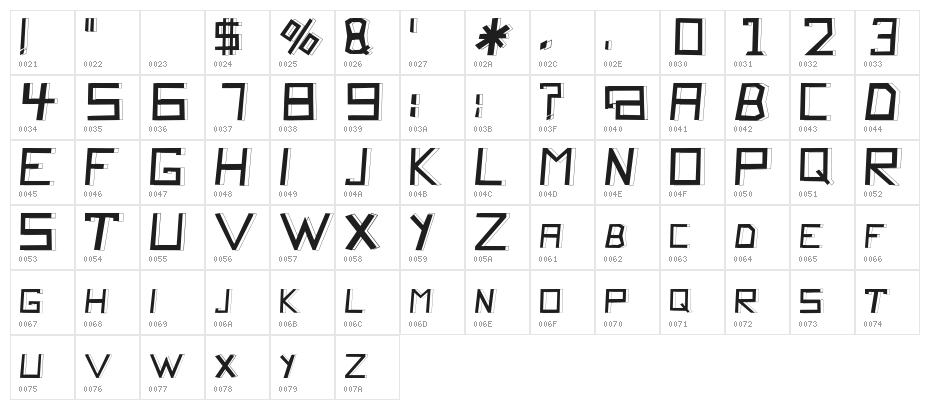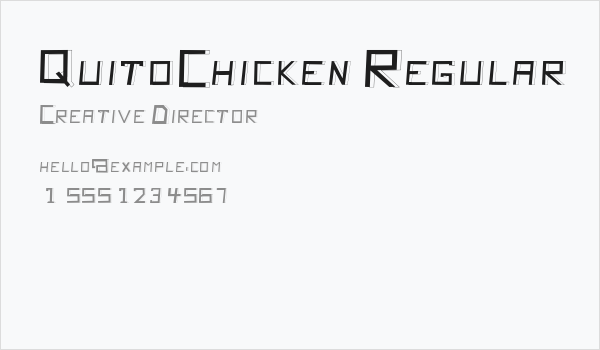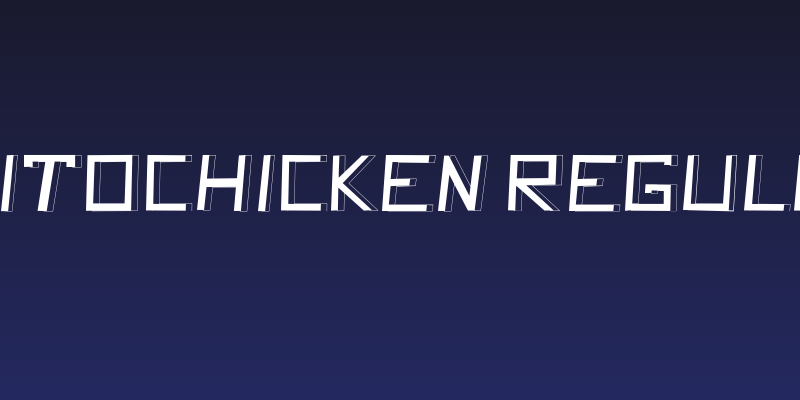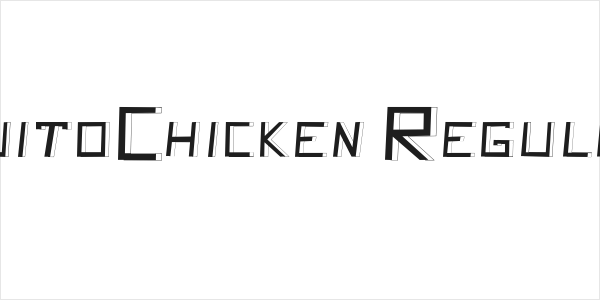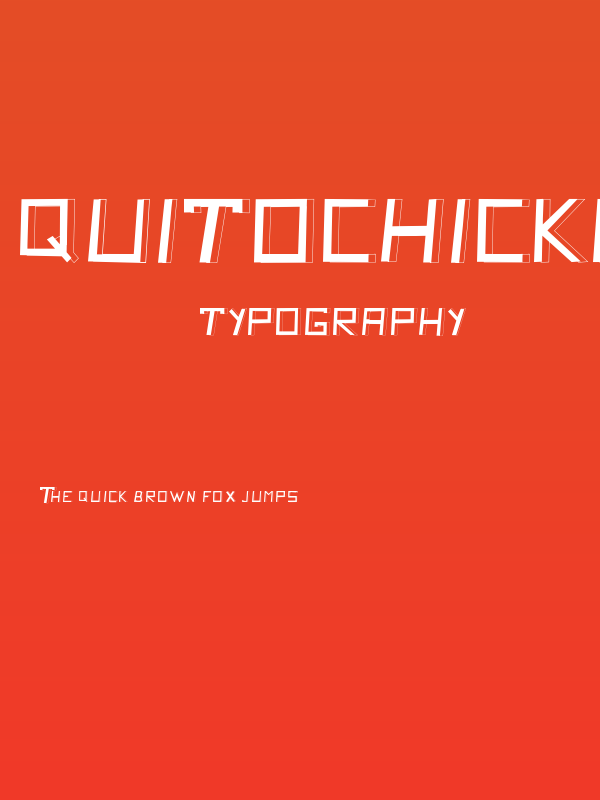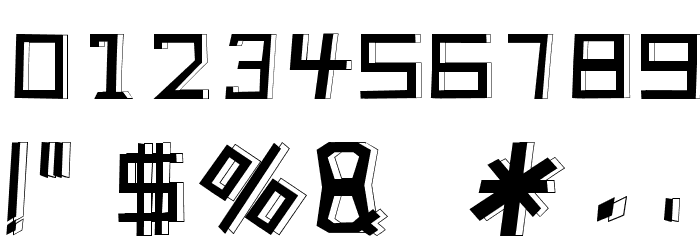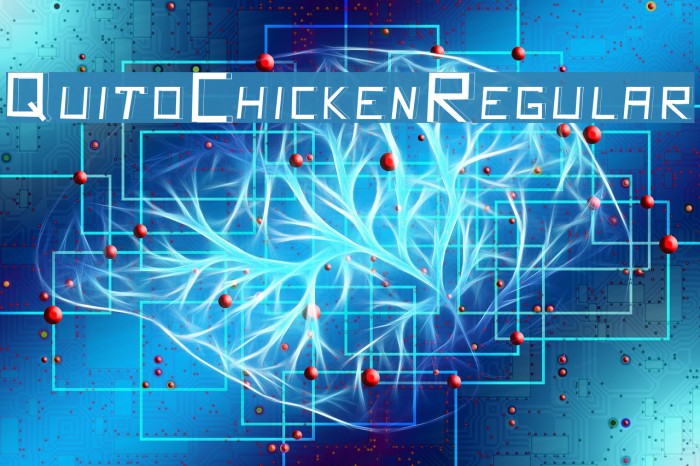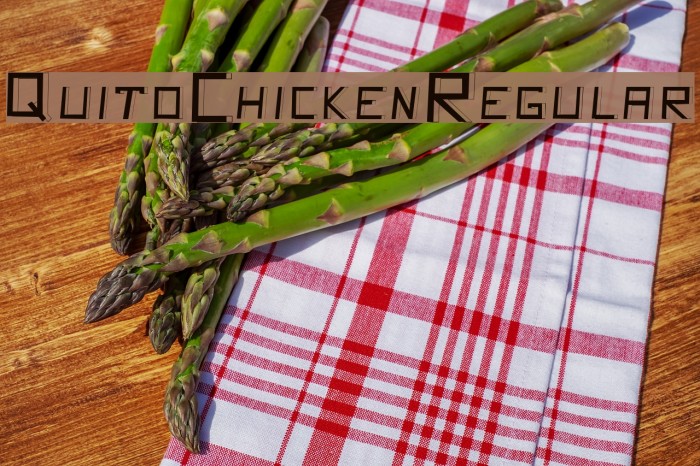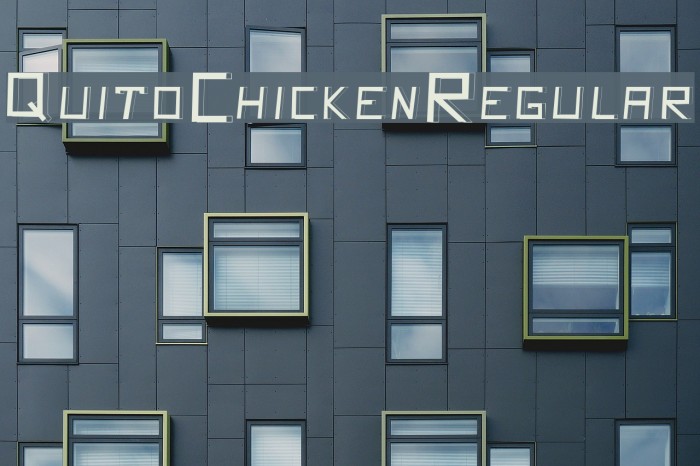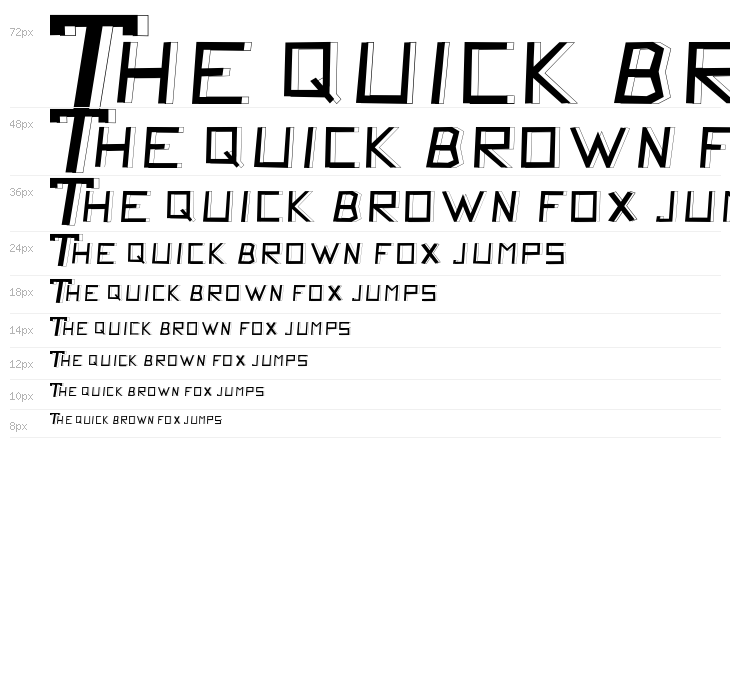
QuitoChicken-Regular Font
QuitoChicken-Regular Description
This font features a bold, geometric design with a distinct three-dimensional effect. The characters are constructed with sharp angles and straight lines, giving them a modern and edgy appearance. The uppercase and lowercase letters maintain a consistent style, with the uppercase being slightly more pronounced. Numbers and special characters follow the same design principles, ensuring a cohesive look across all elements. The font's unique style makes it stand out, with a playful yet structured aesthetic that is both eye-catching and versatile.